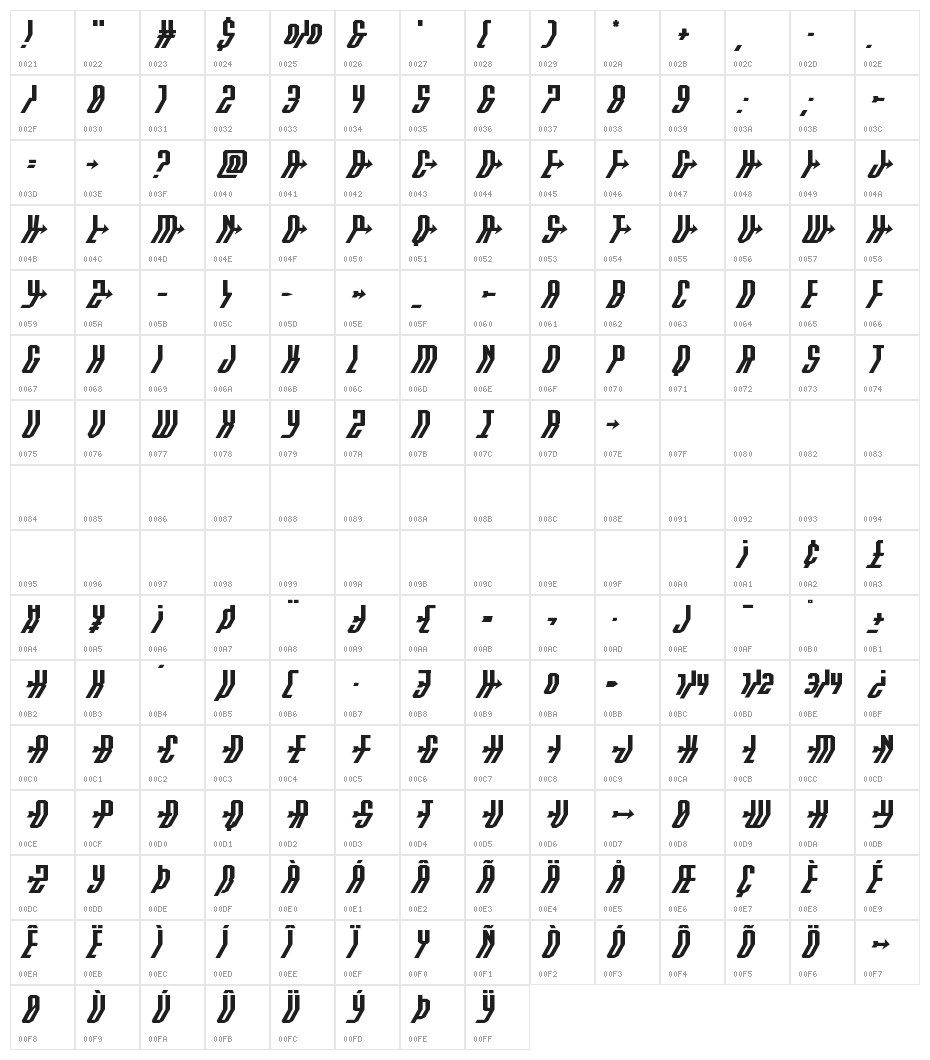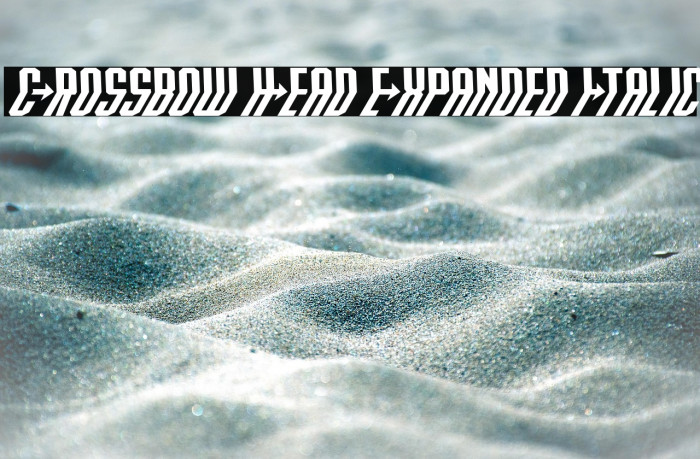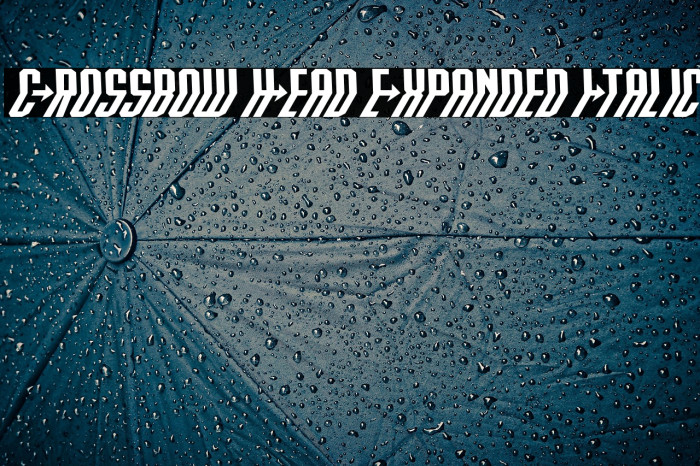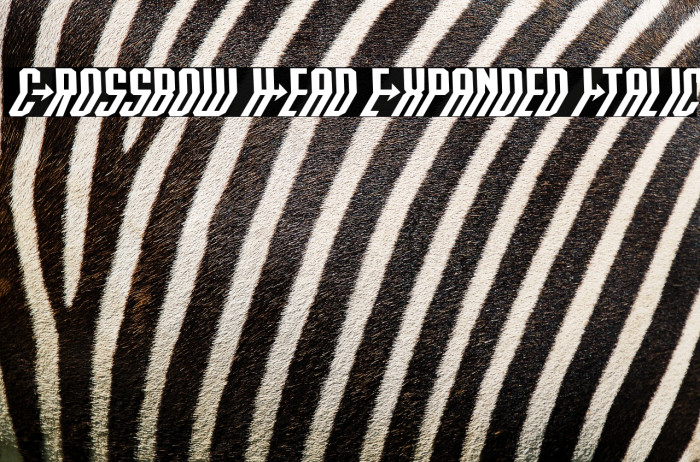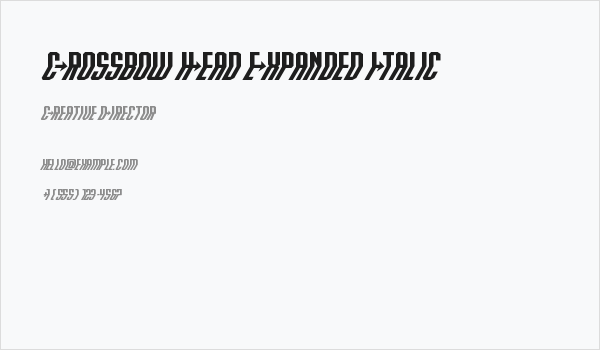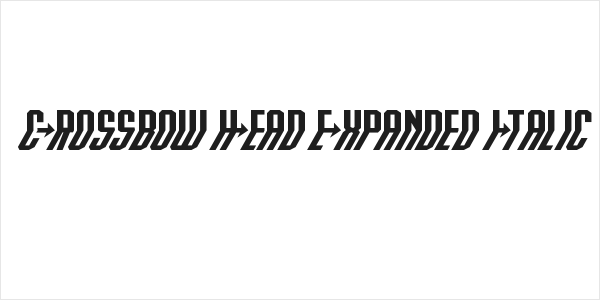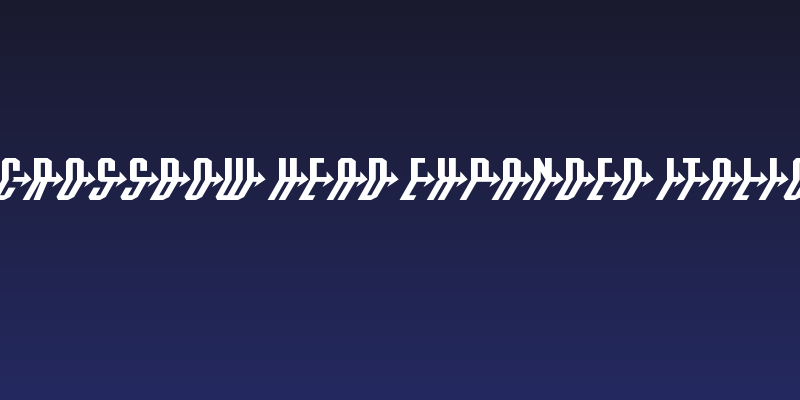
Crossbow Head Expanded Italic Font
Crossbow Head Expanded Italic Description
This font features a bold and dynamic style with an italic slant, giving it a sense of motion and energy. The characters are expanded, providing a wide stance that enhances readability while maintaining a strong visual impact. The angular and geometric design elements contribute to a modern and futuristic appearance, making it suitable for projects that require a bold statement. The uppercase and lowercase letters, along with numbers and special characters, are consistently styled, ensuring a cohesive look across various applications.
| Proposed Projects | Ideal for sports branding, video game titles, posters, and dynamic advertising campaigns. |